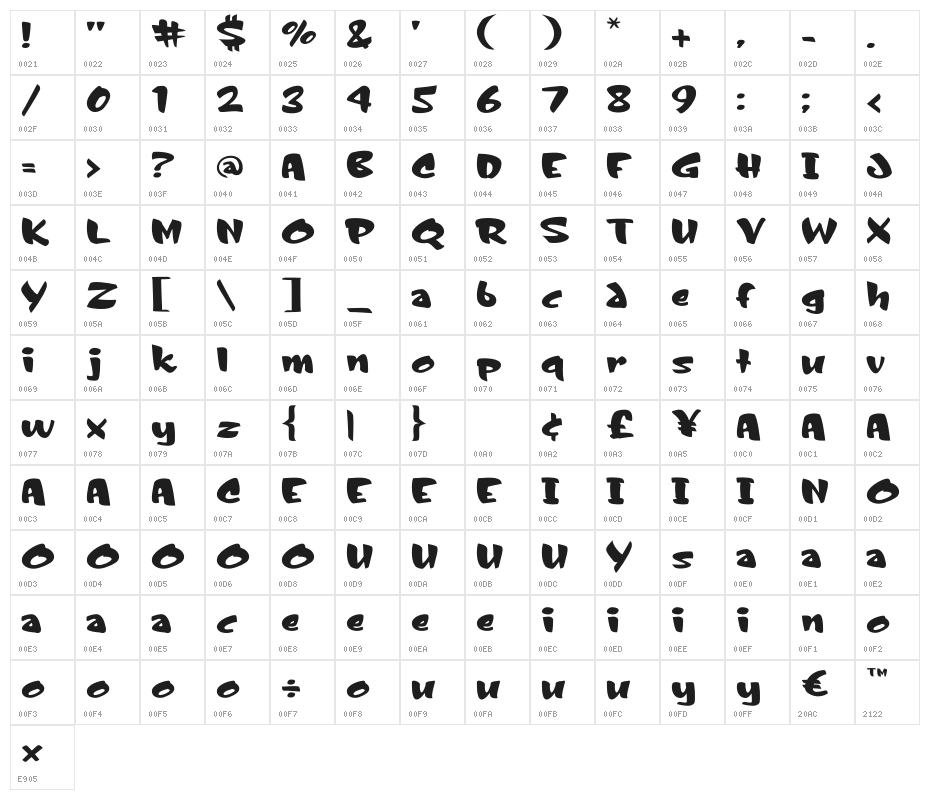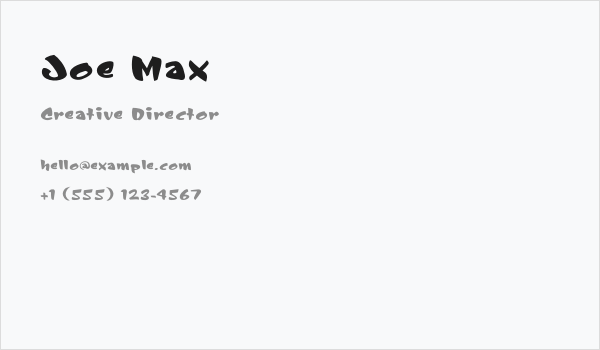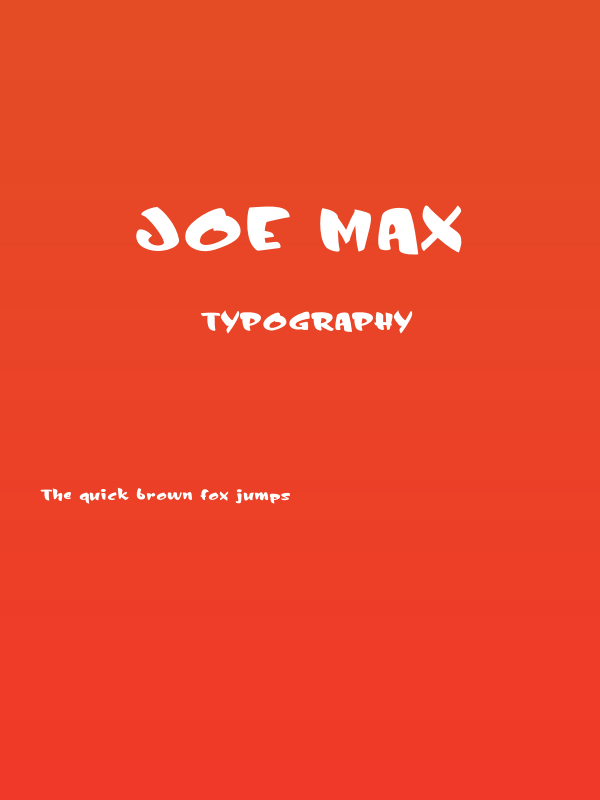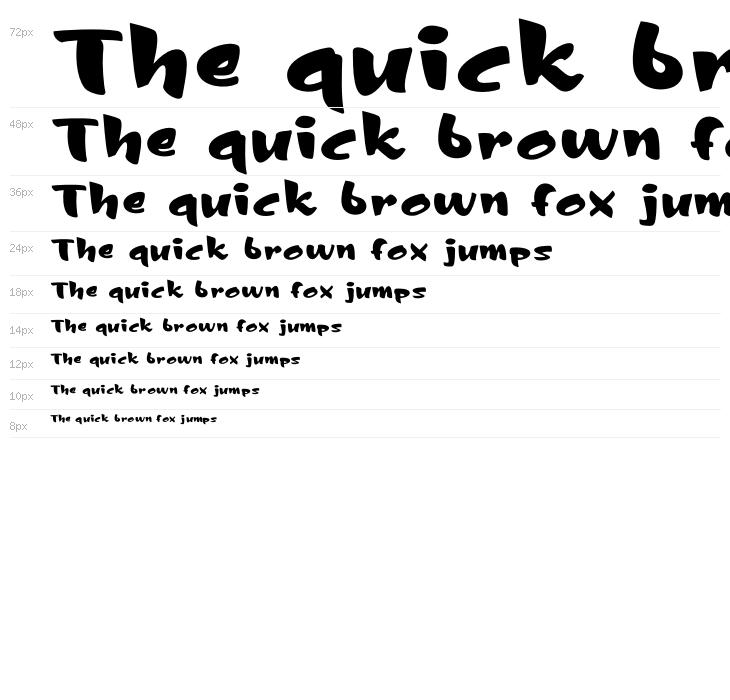
Joe Max Font
Joe Max Description
This font features a bold, playful style with rounded edges and a hand-drawn appearance. The characters are thick and slightly irregular, giving it a casual and friendly look. The uppercase and lowercase letters maintain a consistent style, with a slight slant that adds to its dynamic feel. The numbers and special characters follow the same design, ensuring uniformity across all glyphs. This font is ideal for projects that require a fun and informal touch, such as children's books, playful branding, or creative posters.
| Overall Style | Playful, Casual, Hand-drawn |
| Proposed Projects | Ideal for children's books, playful branding, creative posters, and informal invitations. |